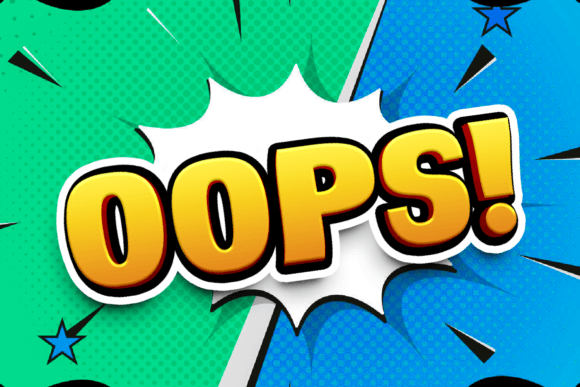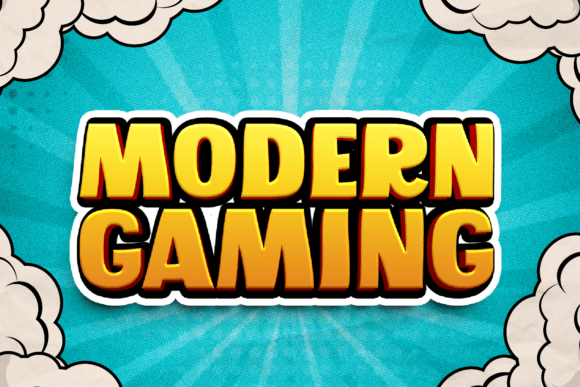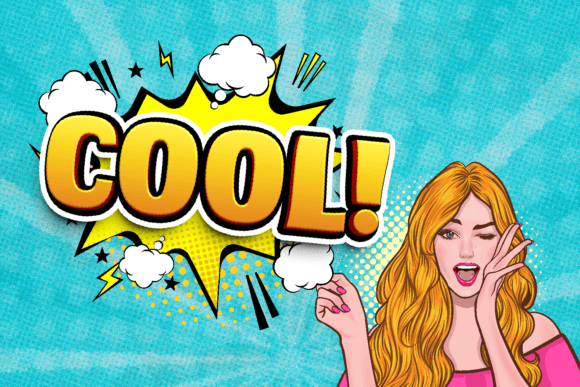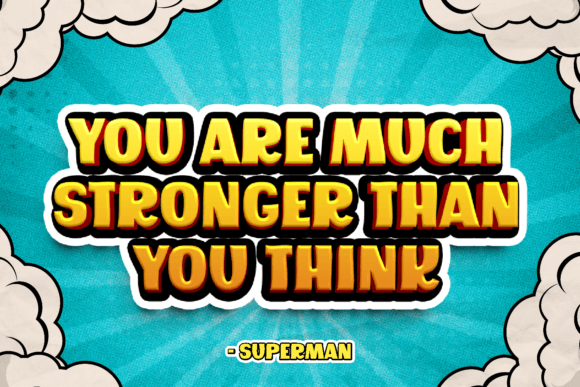
Introduction to Fast Shot Font
As designers, we’ve all been there – staring at a blank canvas, waiting for that spark of creativity to strike. For me, it was a late-night brainstorming session, surrounded by scraps of paper, and a cup of cold coffee. And then, it hit me – a bold, eye-catching headline that would make my design stand out from the crowd. That’s where Fast Shot Font comes in – a strong display comic font that’s perfect for making a statement.
Whether you’re working on a poster, banner, or advertisement, Fast Shot Font is a valuable design resource that can elevate your creative project to the next level. With its high-quality letterforms and transparent background, it’s a versatile tool that can be used in a variety of contexts. And the best part? It’s free to download, making it an accessible addition to any designer’s toolkit.
Key Features of Fast Shot Font
- High-quality font designed for creative projects, perfect for adding a unique touch to your designs.
- Features a transparent background, allowing for seamless integration with any design element.
- Designed with a high resolution of 300 DPI, ensuring crisp and clear text in various sizes.
- Available in multiple sizes, ranging from 12pt to 72pt, providing flexibility for various design applications.
- Perfect for use in digital designs, such as infographics, presentations, and social media graphics, due to its modern and sleek aesthetic.
Honest Review: Fast Shot Font
I recently had the chance to work with the Fast Shot Font, and I must say it’s been a game-changer for my creative projects. As a designer, I’m always on the lookout for high-quality design resources that can help me bring my ideas to life.
Here are some things that work well about the Fast Shot Font:
- ✨ The font is extremely versatile and can be used for a wide range of creative projects, from logos to typography-heavy designs.
- ✨ The transparent background option is a huge plus, allowing me to easily integrate the font into my designs without worrying about unnecessary backgrounds.
- ⚠️ The font is only available in a limited number of weights, which can make it difficult to achieve the perfect balance in certain designs.
Overall, I’m really impressed with the Fast Shot Font. It’s a great addition to any designer’s toolkit, and I would highly recommend it for personal or small-scale creative projects.
Designing with Fast Shot Font
When using Fast Shot Font, consider pairing it with a transparent background to create a clean and modern design. This font is ideal for creative projects that require a high-quality, custom font. With its unique design, Fast Shot Font is perfect for logos, headings, and titles in your design project.
Getting the Most Out of Fast Shot Font
To get the most out of Fast Shot Font, experiment with different font sizes, colors, and combinations with other fonts. This will help you achieve the desired look and feel for your design project.
Fast Shot Font is commonly used in branding, advertising, and digital design projects. Its unique design and high-quality make it an ideal choice for creating eye-catching headlines and titles.